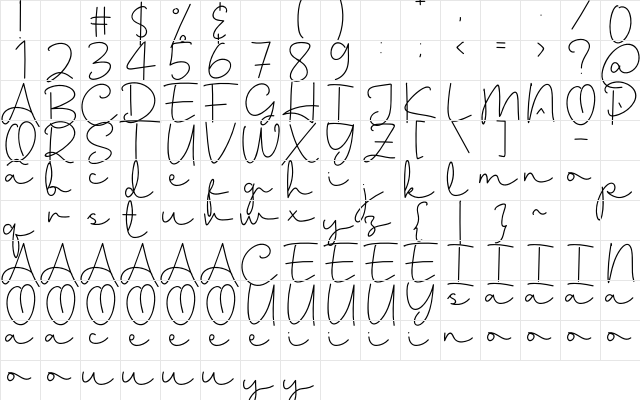
Muiden Castle Script Regular
Design Context for Muiden Castle Script Typeface
Muiden Castle Script brings a calligraphic fluidity to the page — its connecting strokes and expressive curves give it an unmistakably human quality.
Font Pairing: Combine Muiden Castle Script with a simple geometric sans for maximum contrast — the tension between flowing curves and clean structure is a classic typographic pairing.
Pro Tip: Use Muiden Castle Script for short runs of text — names, titles, or taglines. Extended body copy in script faces tires the eye quickly.